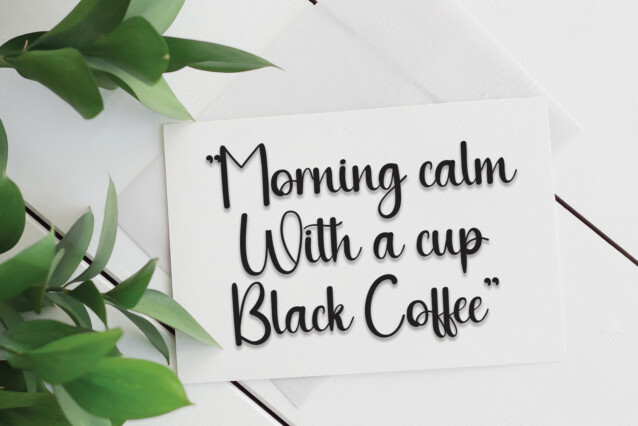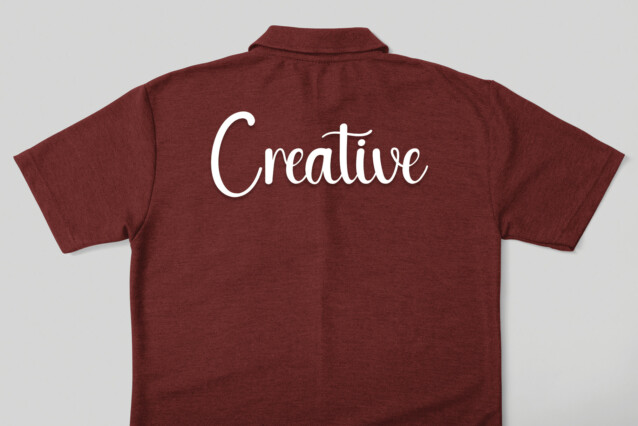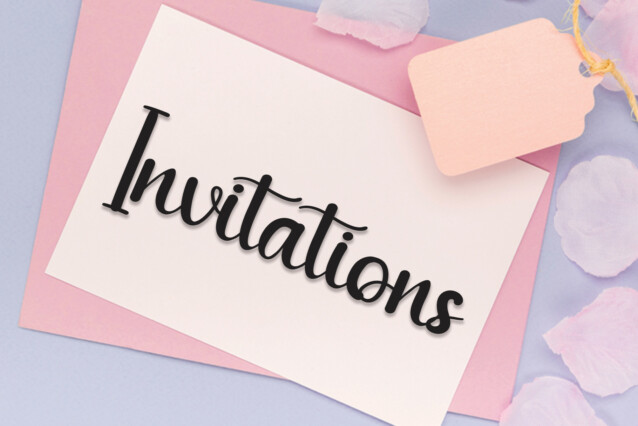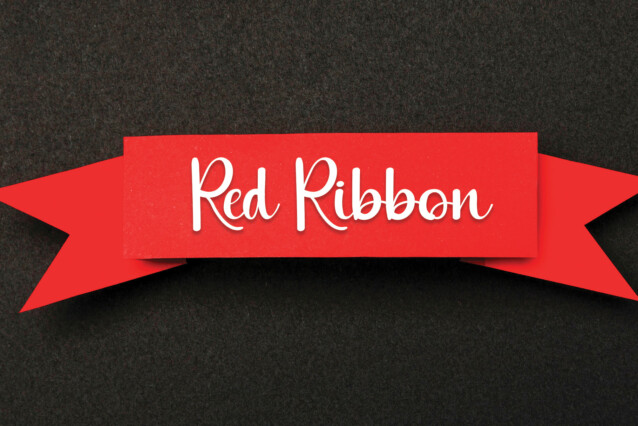
Winter Mountain Script Font
Winter Mountain Script Font – The latest style letters are perfect for wall displays, wedding invitations, social media post logos, advertisements, product packaging, product designs, labels, photography, watermarks, invitations, stationery, and any project that requires a taste for handwriting.